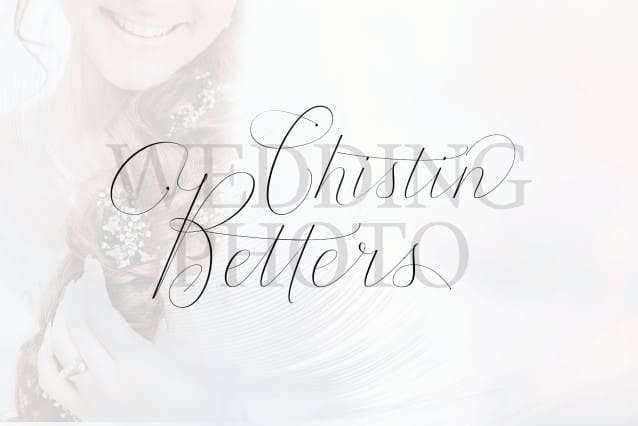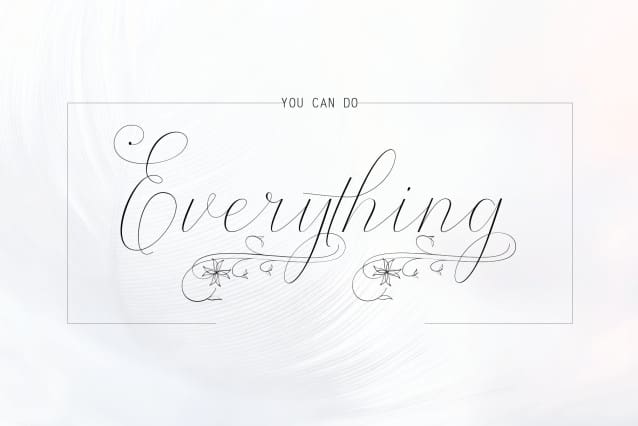
Scelflesh Font
Scelflesh Font, a work that is purely hand-written, has natural characteristics. It’s perfect for invitations, signatures, blogs, social media, business cards, product brands.
Scelflesh is a simple font that has Stylistic, Stylistic Alternative. and includes uppercase and lowercase letters, numbers and punctuation.